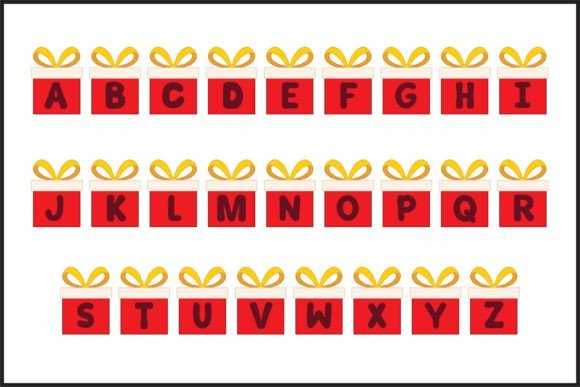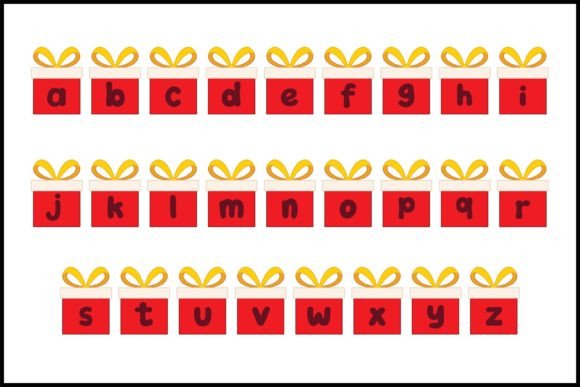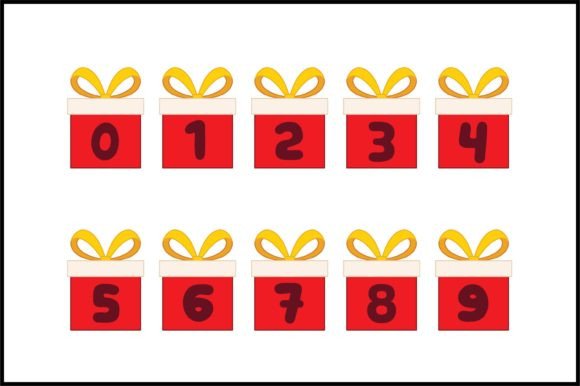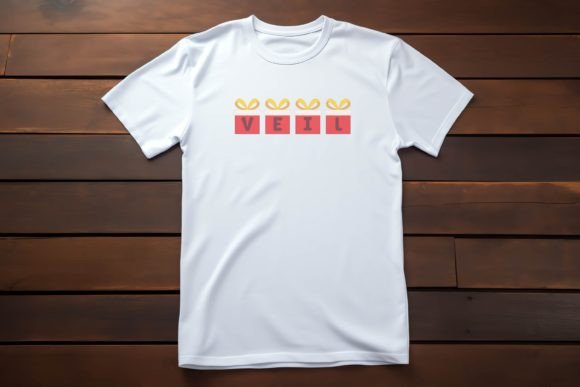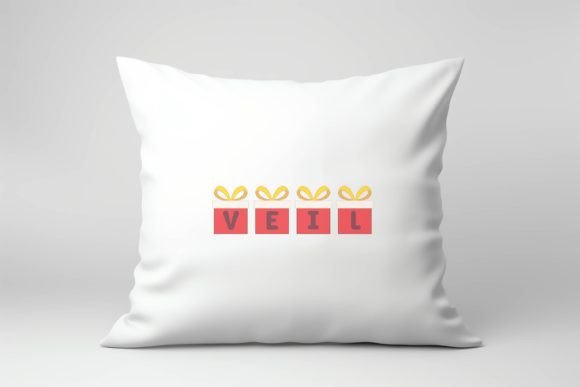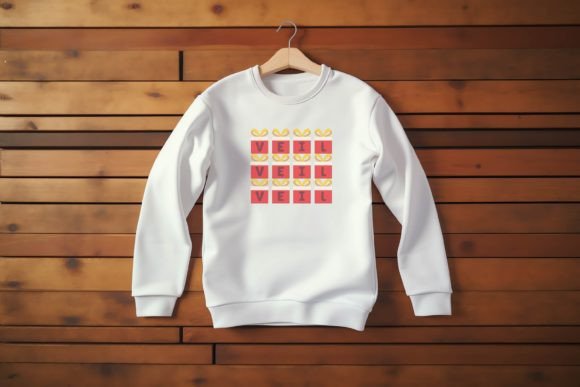
Introducing Giftbox Font: A Playful and Artistic Addition to Your Design Arsenal
Are you a designer, crafter, or DIY enthusiast looking for a font that can add a touch of playfulness and artistic flair to your projects? Look no further than the Giftbox Font! This delightful font is perfect for a wide range of applications, from children’s books and posters to invitations, greeting cards, and more.
The Characteristics of Giftbox Font
Giftbox Font is a unique and charming typeface that is sure to capture the attention of your audience. Its whimsical and colorful design makes it an ideal choice for projects that require a playful and artistic feel. The font is available in both black and color versions, offering versatility and flexibility in your design endeavors.
Uses of Giftbox Font
So, what can you use Giftbox Font for? The possibilities are endless! Here are a few ideas to get you started:
- Children’s Books: Giftbox Font is perfect for creating engaging and interactive children’s books. Its whimsical design and bright colors will capture the attention of young readers and make reading a fun experience.
- Posters and Flyers: Add a playful touch to your posters and flyers with Giftbox Font. Its unique design makes it perfect for promoting events, products, or services in a fun and creative way.
- Invitations and Greeting Cards: Make your invitations and greeting cards stand out with Giftbox Font. Its artistic design and colorful appearance will add a personal touch to your correspondence.
Tips for Using Giftbox Font
To make the most of Giftbox Font, here are a few tips to keep in mind:
- Experiment with Colors: Giftbox Font is available in a range of colors, so don’t be afraid to experiment and find the perfect combination for your design.
- Mix and Match: Combine Giftbox Font with other fonts to create a unique and visually appealing design.
- Pay Attention to Readability: While Giftbox Font is playful and artistic, it’s essential to ensure that your text is readable. Adjust the font size and style as needed to achieve the perfect balance.
Giftbox Font is a versatile and charming typeface that can add a touch of playfulness and artistic flair to your designs. With its range of uses, technical compatibility, and design tips, this font is perfect for designers, crafters, and DIY enthusiasts looking to create engaging and interactive projects. So why wait? Download Giftbox Font today and start creating!